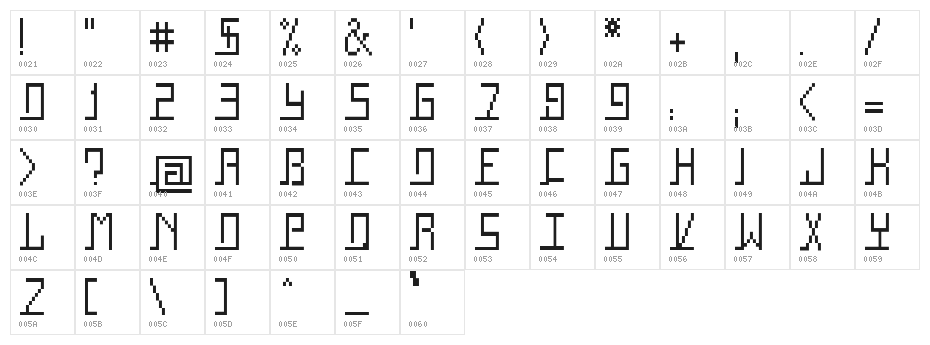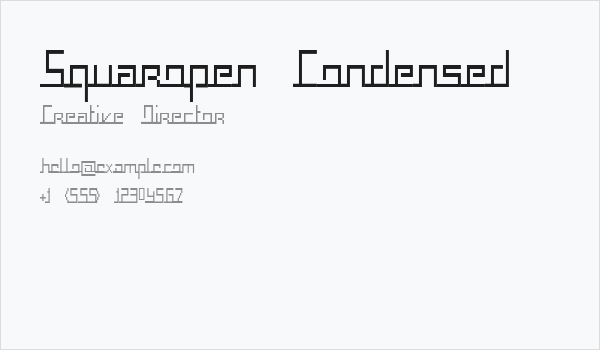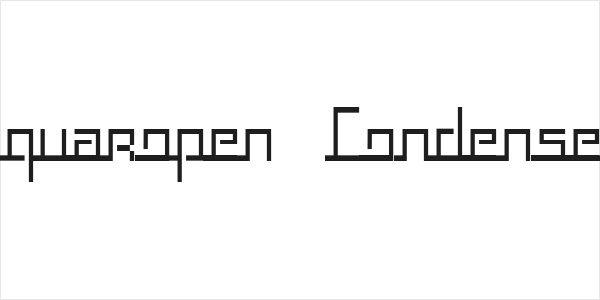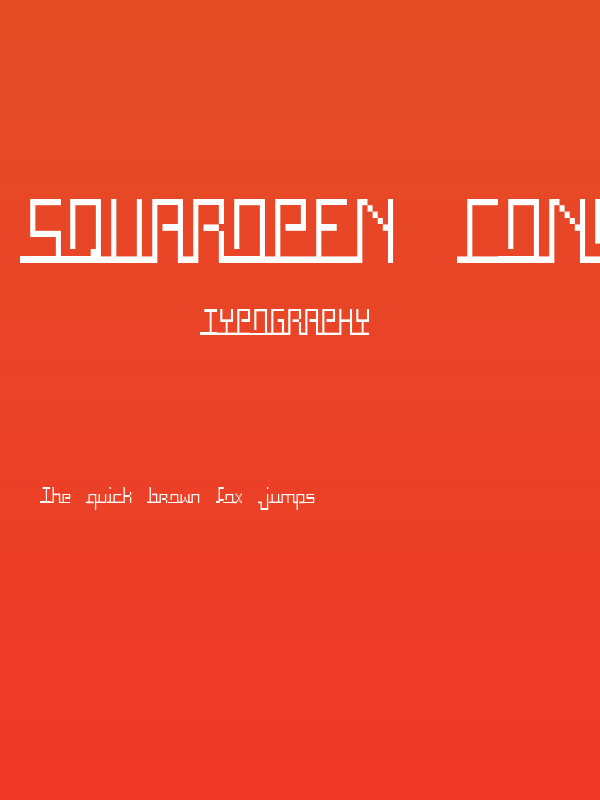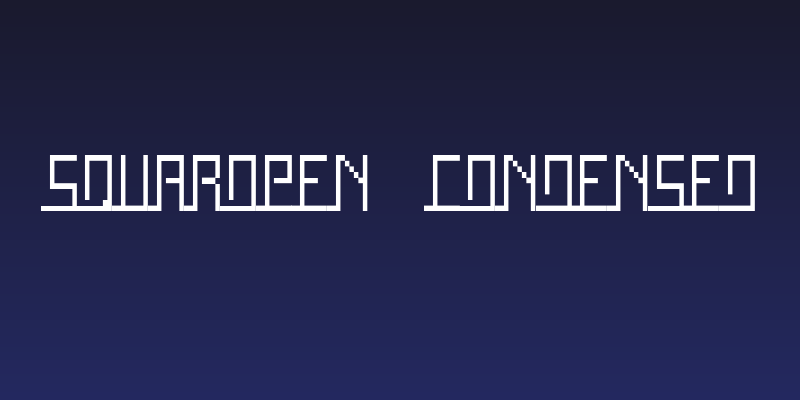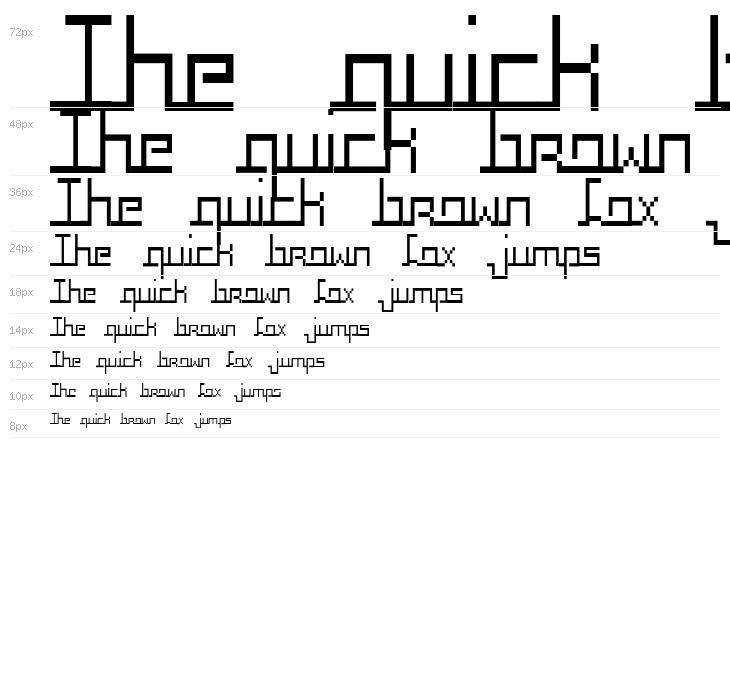
Squaropen Condensed Font
Squaropen Condensed Description
This font features a unique, geometric design with a pixelated, grid-like structure. Each character is composed of straight lines and right angles, giving it a distinctly digital and modern appearance. The uppercase and lowercase letters maintain a consistent height, contributing to a uniform look. The numerals and special characters follow the same structural pattern, ensuring visual coherence across all glyphs. This font's condensed width allows for efficient use of space, making it suitable for projects where space is at a premium. Its bold, monospaced design is reminiscent of early computer graphics and digital displays.
| Use Case | Logos, Headlines, Digital interfaces |
| Proposed Projects | Ideal for digital art, retro-themed designs, video game interfaces, and tech-related branding. |